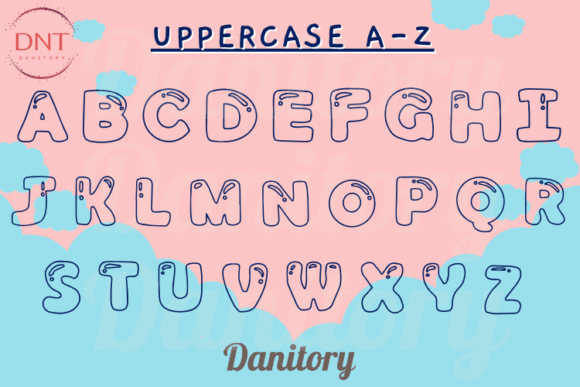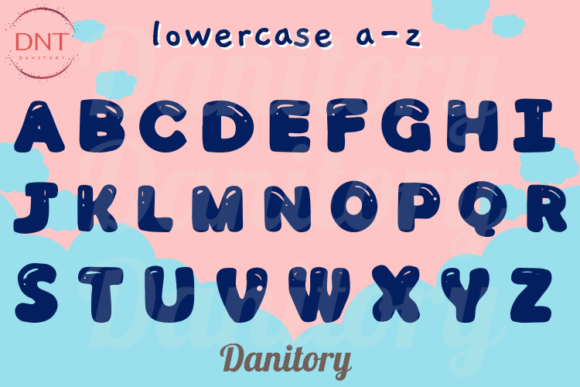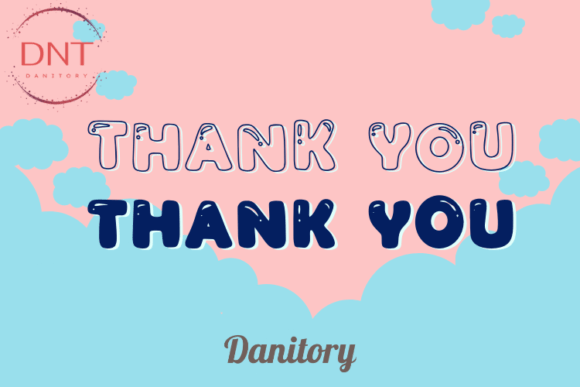
The Perfect Pop of Personality: Unleashing the Fun of Bubble Font
Have you ever been brainstorming a creative project, and suddenly, an idea pops into your head – literally! You envision a whimsical logo, a playful product label, or a quirky social media graphic that’s guaranteed to grab attention. That’s exactly what happens when you unleash the fun of Bubble Font. This natural and charming Display font is designed to bring a smile to your audience’s faces and add a touch of personality to your brand.
Whether you’re working on a branding project, designing t-shirts, or creating unique products, Bubble Font is the perfect addition to your creative toolbox. Its quirky vibe makes it an instant favorite among designers who crave something fresh and exciting. With Bubble Font, you can add a pop of personality to your projects and make them truly stand out in a crowded market.
Bubble Font Key Features
- Font Family: Bubble Font is a sans-serif font family with a unique, rounded design.
- Character Set: Includes a wide range of characters, including uppercase and lowercase letters, numbers, and punctuation marks.
- Unique Characteristics: The Bubble Font features a distinctive rounded shape, with each letter and symbol designed to resemble a bubble, giving it a playful and whimsical feel.
Bubble Font Review
Overall, I think Bubble Font is an interesting and unique choice for designers. Here’s what I like about it:
- ✨ It’s playful and fun: The rounded shapes and soft edges of the Bubble Font make it perfect for creating a lighthearted and approachable atmosphere.
- ✨ Versatile: Despite its playful nature, Bubble Font works surprisingly well for a variety of projects, from children’s books to food packaging.
- ✨ Easy to read: The font is clear and easy to read, even at small sizes, making it a great choice for digital applications.
- ⚠️ Limited formal applications: While Bubble Font can work for some formal projects, it’s not the best choice for more serious or professional applications.
- ⚠️ Limited character set: The font may not have a complete character set, which could be a problem for projects that require a wide range of characters.
- ⚠️ May not be suitable for long text: Due to its playful nature, Bubble Font may not be the best choice for long blocks of text, as it can become overwhelming.
Overall, I think Bubble Font is a great choice for designers who want to add a touch of playfulness to their projects. While it has some limitations, it’s a versatile and easy-to-use font that can add a lot of personality to a design.
The bubble font is commonly used in:
- Social media graphics and posts
- Event invitations and flyers
- Children’s educational materials and games
- Decorative text and quotes
To get the most out of the bubble font, try:
- Combining it with other decorative fonts for a unique look
Alternatives to Bubble Font
Helvetica Rounded
Helvetica Rounded is a sans-serif font with rounded edges, similar to Bubble Font. It’s ideal for use in headings, titles, and body text where a friendly and approachable feel is desired. Helvetica Rounded is a more versatile option than Bubble Font, with a wider range of applications.
Comparison to Bubble Font: Helvetica Rounded has a more geometric and modern feel, whereas Bubble Font is more playful and rounded. Helvetica Rounded is also more readable in smaller sizes.
Playfair Display is a luxurious and elegant script font that can add a touch of sophistication to designs. It’s suitable for use in headings, titles, and body text where a high-end feel is desired. Playfair Display is a more formal option than Bubble Font, with a more refined and classic look.